Noam Text exhibition at TDC NY
TDC arranged an exhibition and presentation for Noam Text, led by Adi Stern and Veronika Burian.
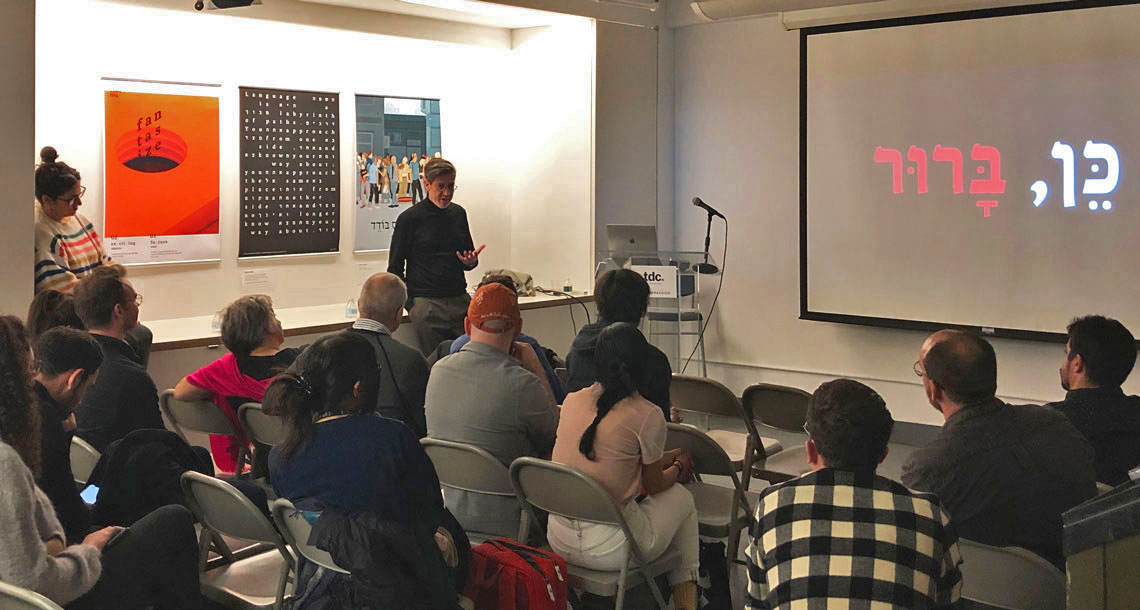
Since Noam Text’s 2017 release, Adi Stern and Veronika Burian have taken part in several presentations around the world centred on the Hebrew language, culture, design, and typography. Their most recent one just concluded at the Type Director’s Club in New York, but the poster exhibition will remain open until the end of January 2020.
This was an updated version of the 2018 exhibition in Tel Aviv, including Adi’s discussion of the Jewish Memorial in Auschwitz, which he art directed, along with the accompanying book in which Noam Text was used. Additional posters showed a concise history of the Hebrew script and basic typographic explanation of the scripts. Veronika spoke about the process of releasing such a respectful and modern Hebrew serif family, highlighting the resilience, progress, and harmony inherent to Noam Text’s design.
After the presentations, the audience asked questions about terminology for Hebrew type design, difficulties of bilingual type setting, and culture. If you missed this encouraging night, the exhibit is open until the end of January, so make an appointment to stop by.